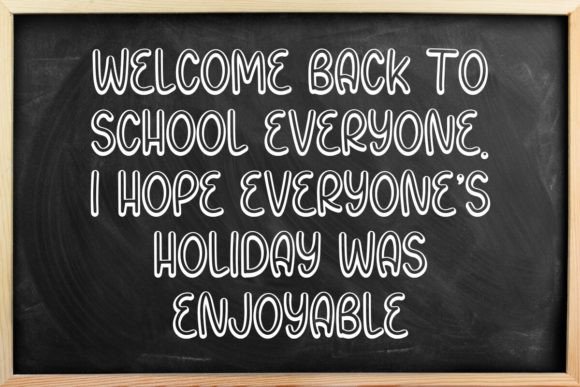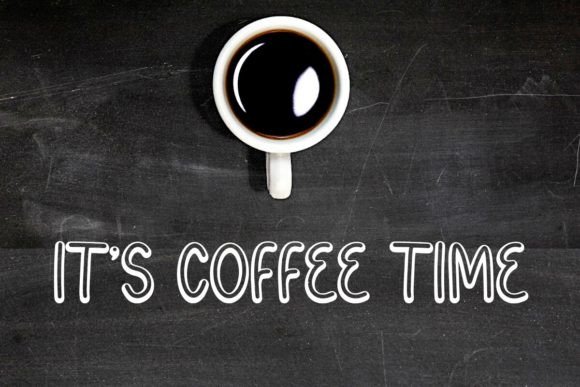
Playful Outline Font
Introducing Playful Outline, the effortlessly distinctive display font. Crafted with versatility in mind, this font breathes life into any creative endeavor. Its charm lies in its unique design which makes it standout addition to your font collection. Regardless of the theme or canvas, Playful Outline has the prowess to amplify the allure of your digital masterpiece.